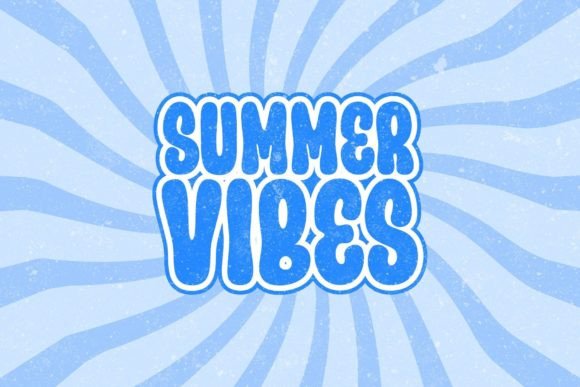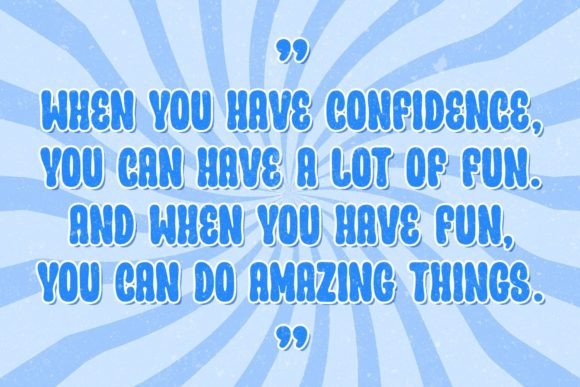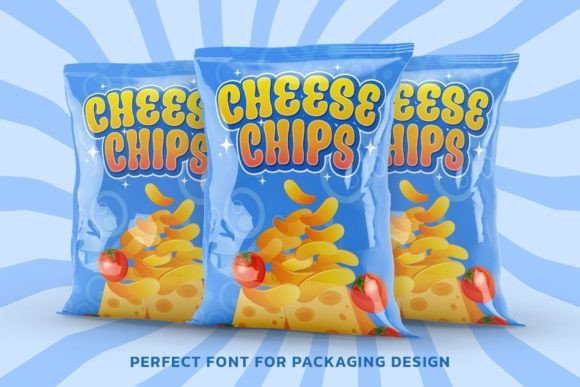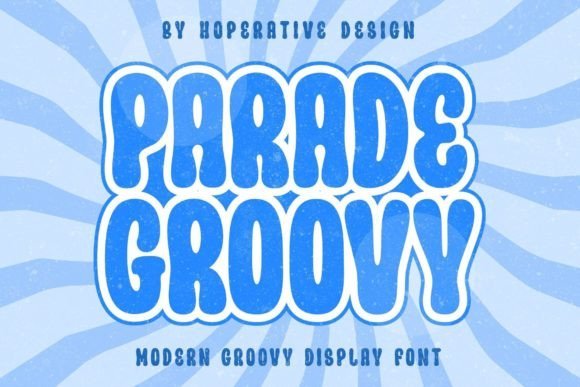
Introduction to Parade Groovy Font
Parade Groovy is a modern and groovy display font perfect for creating t-shirts, stickers, cover books, children’s books, social media posts, invitations, and much more.
Parade Groovy is a modern and groovy display font perfect for creating t-shirts, stickers, cover books, children’s books, social media posts, invitations, and much more!
Key Features of Parade Groovy Font
Why Choose Parade Groovy Font?
Parade Groovy Font offers exceptional quality and versatility, making it a valuable addition to your design toolkit. Whether you’re creating for personal projects or commercial use, Parade Groovy Font delivers professional results.